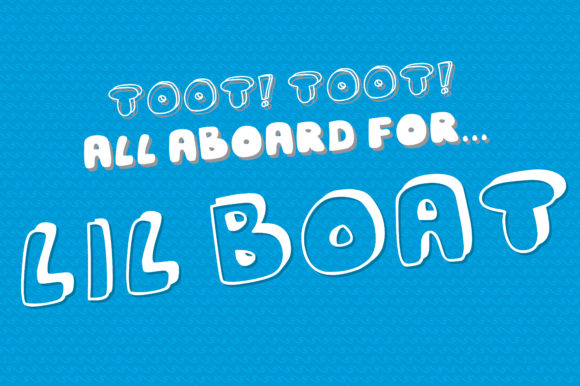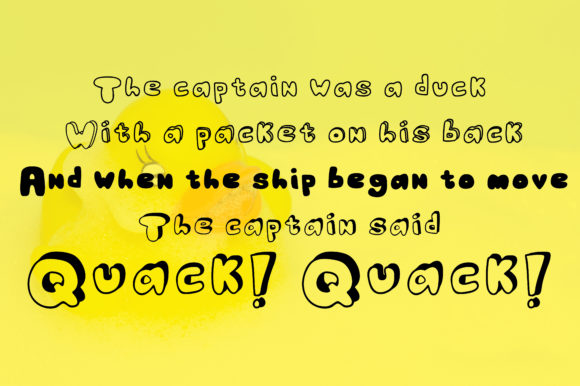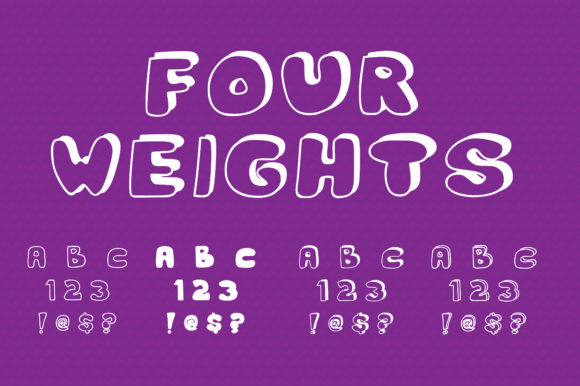
Lil Boat Font
About Lil Boat Font
The Lil Boat was inspired by painted hand written lettering on boats, ships and yachts. It boasts a massive range of different styles to mix and match to create a perfect fun, funky design. Not just for boats!